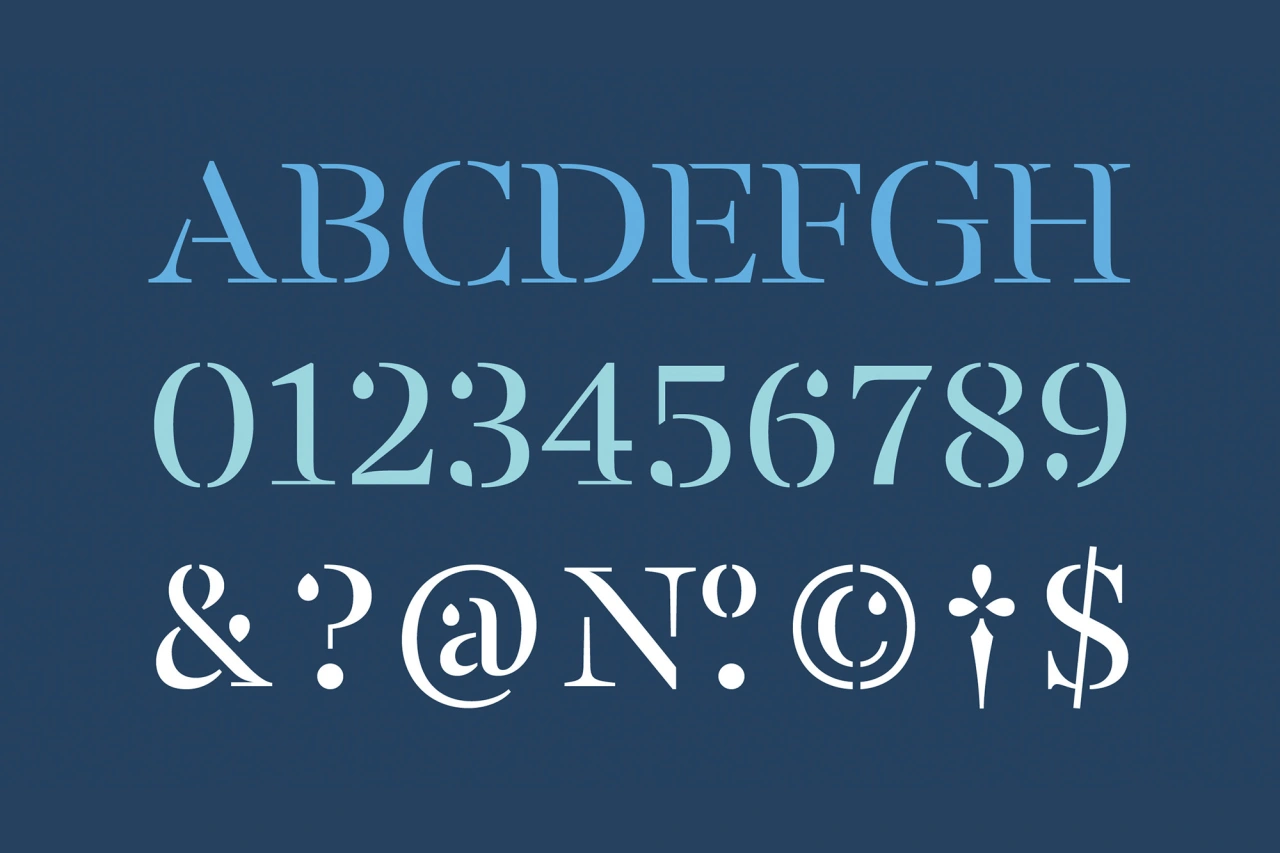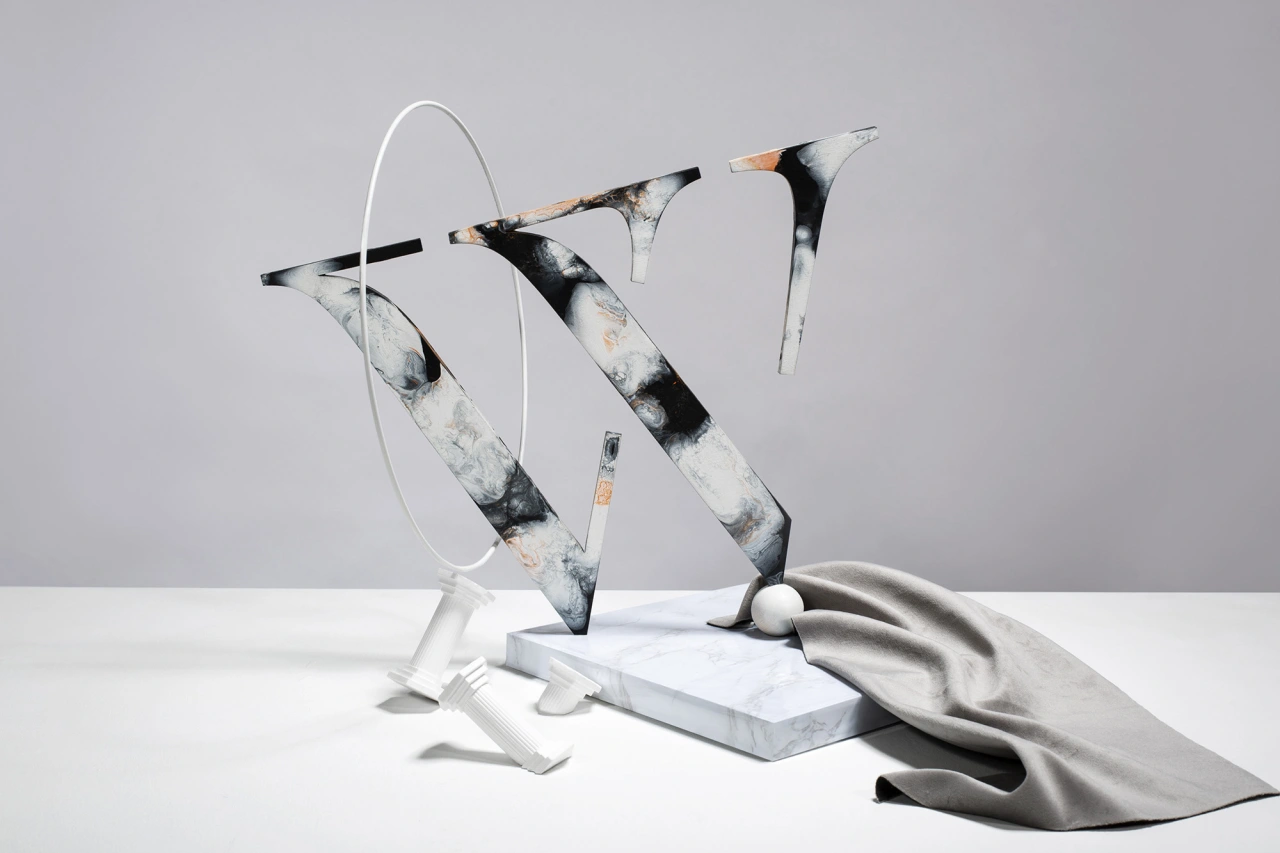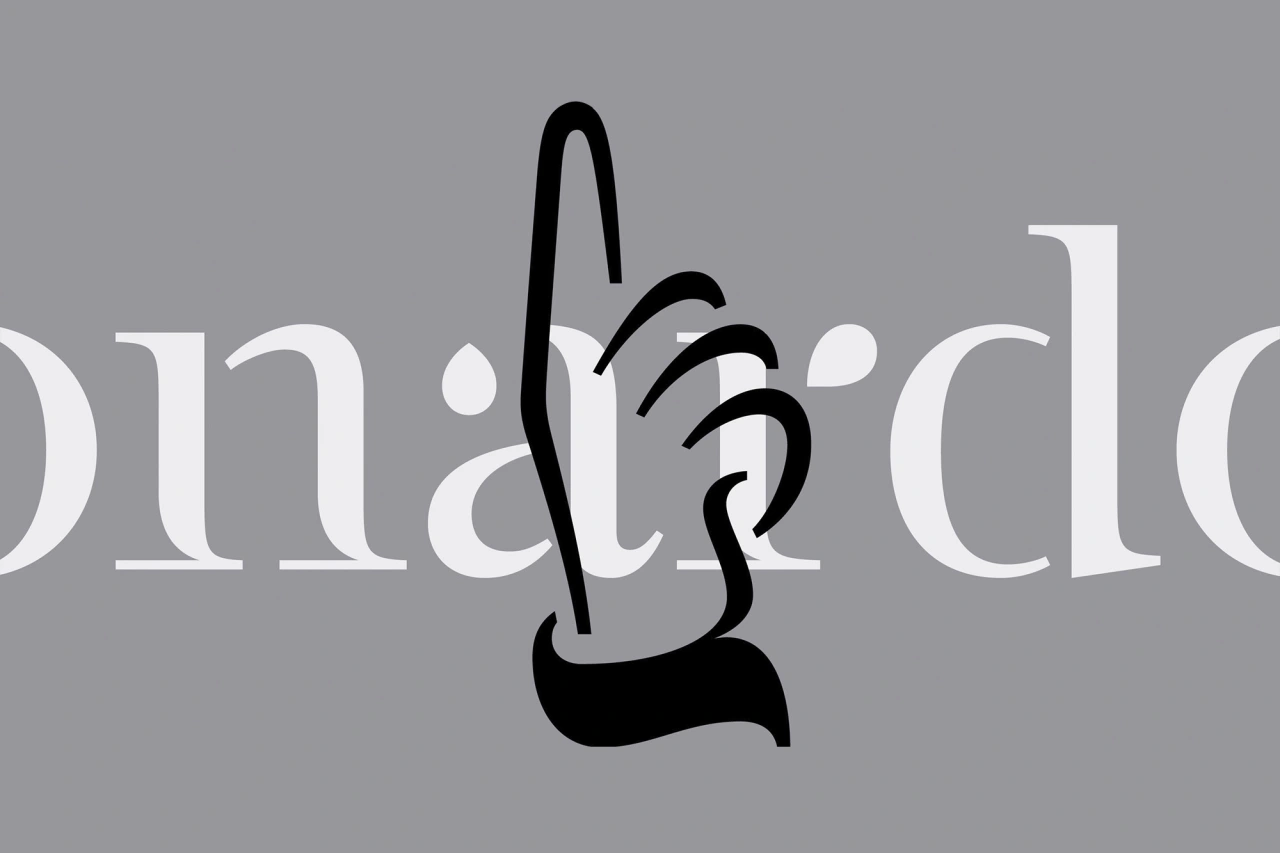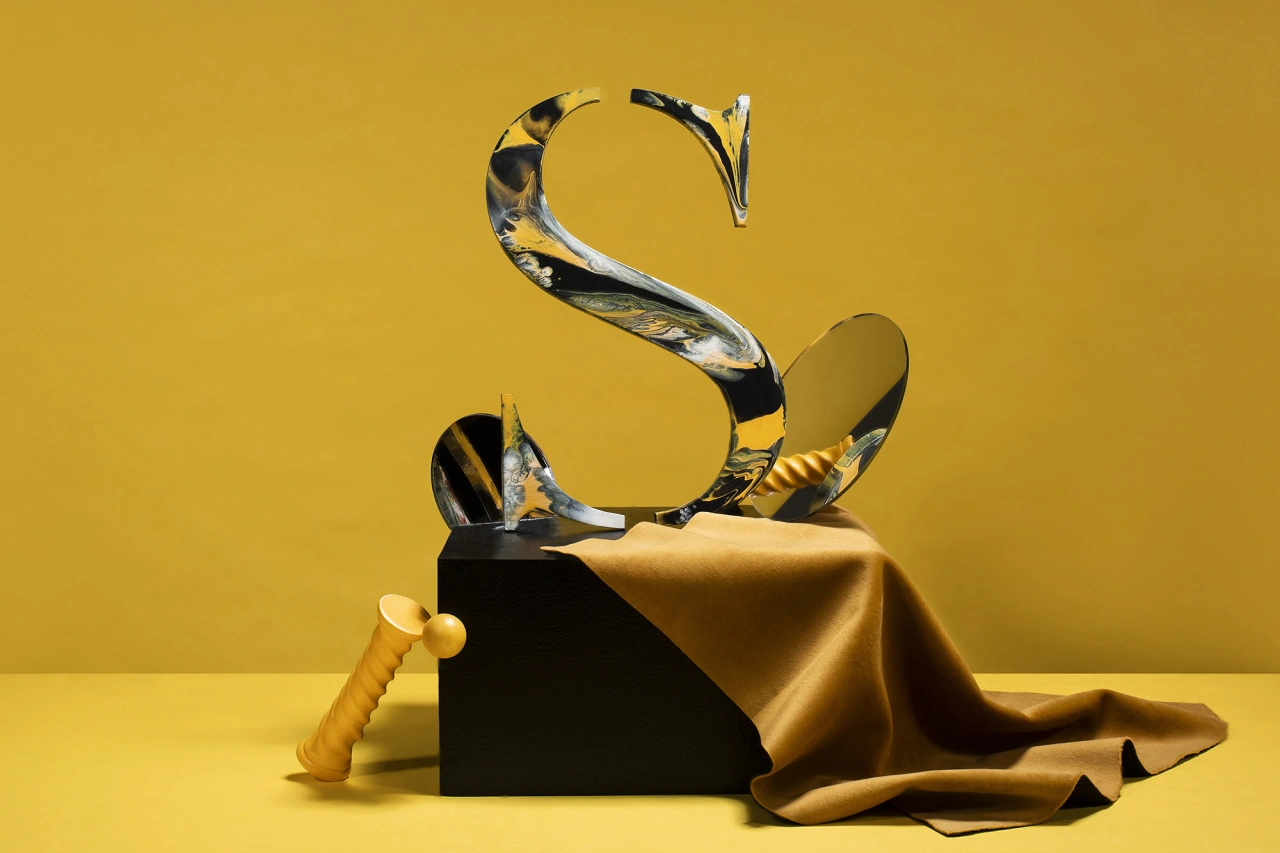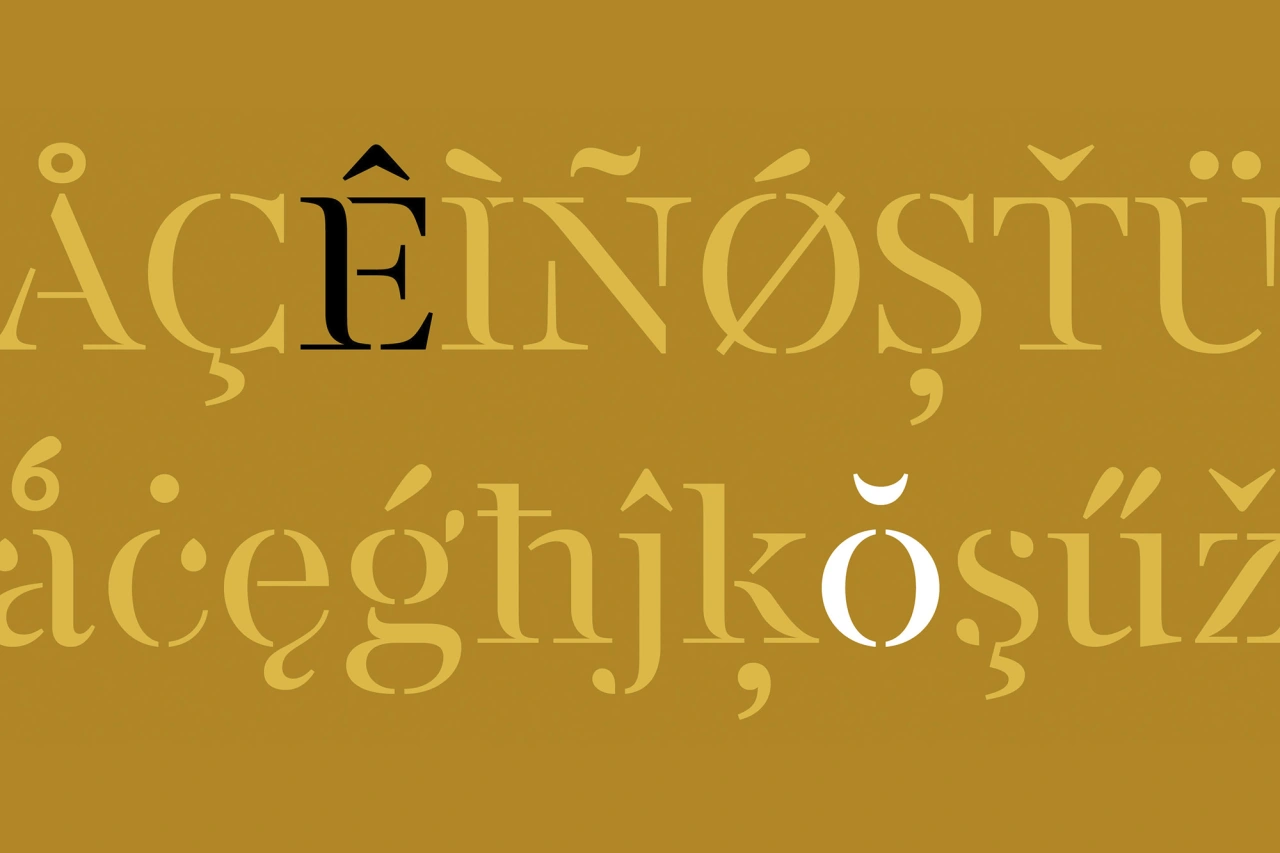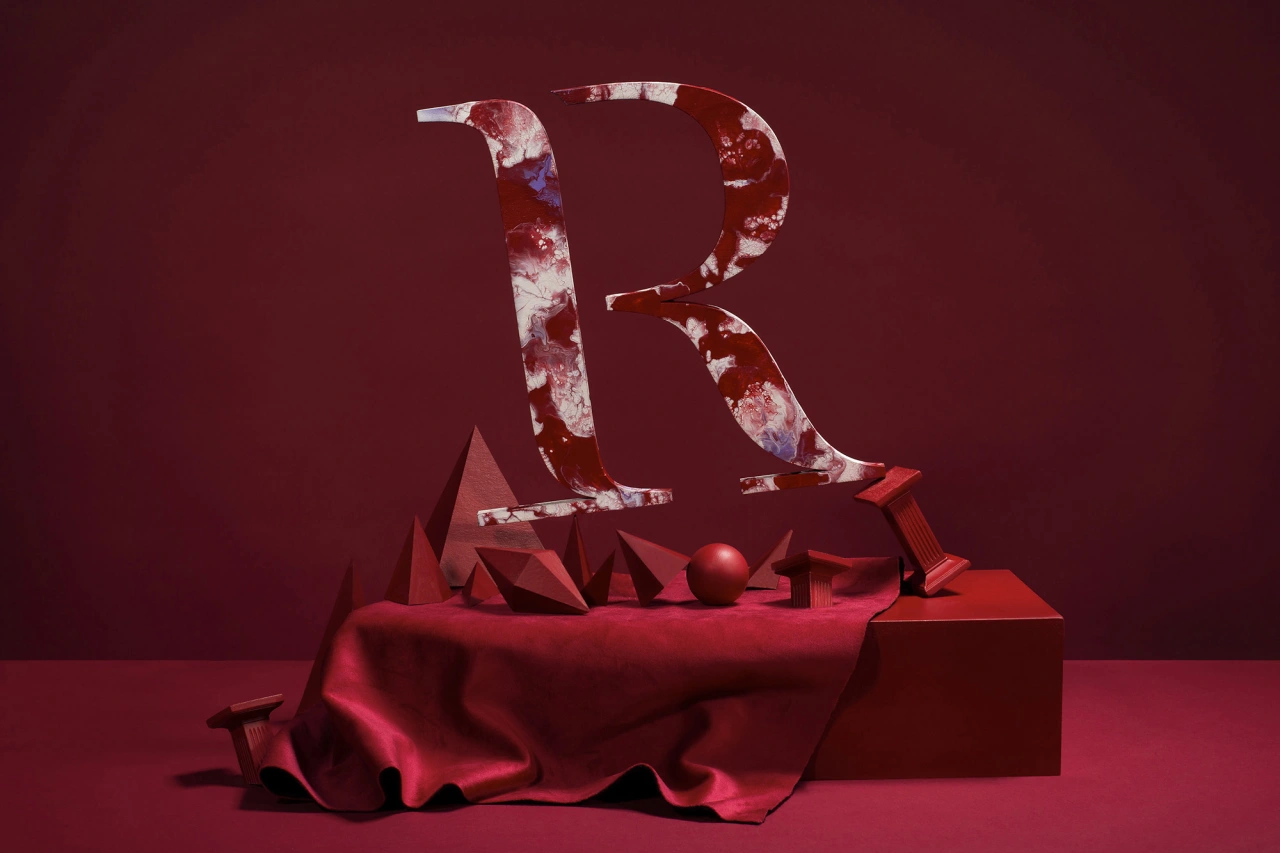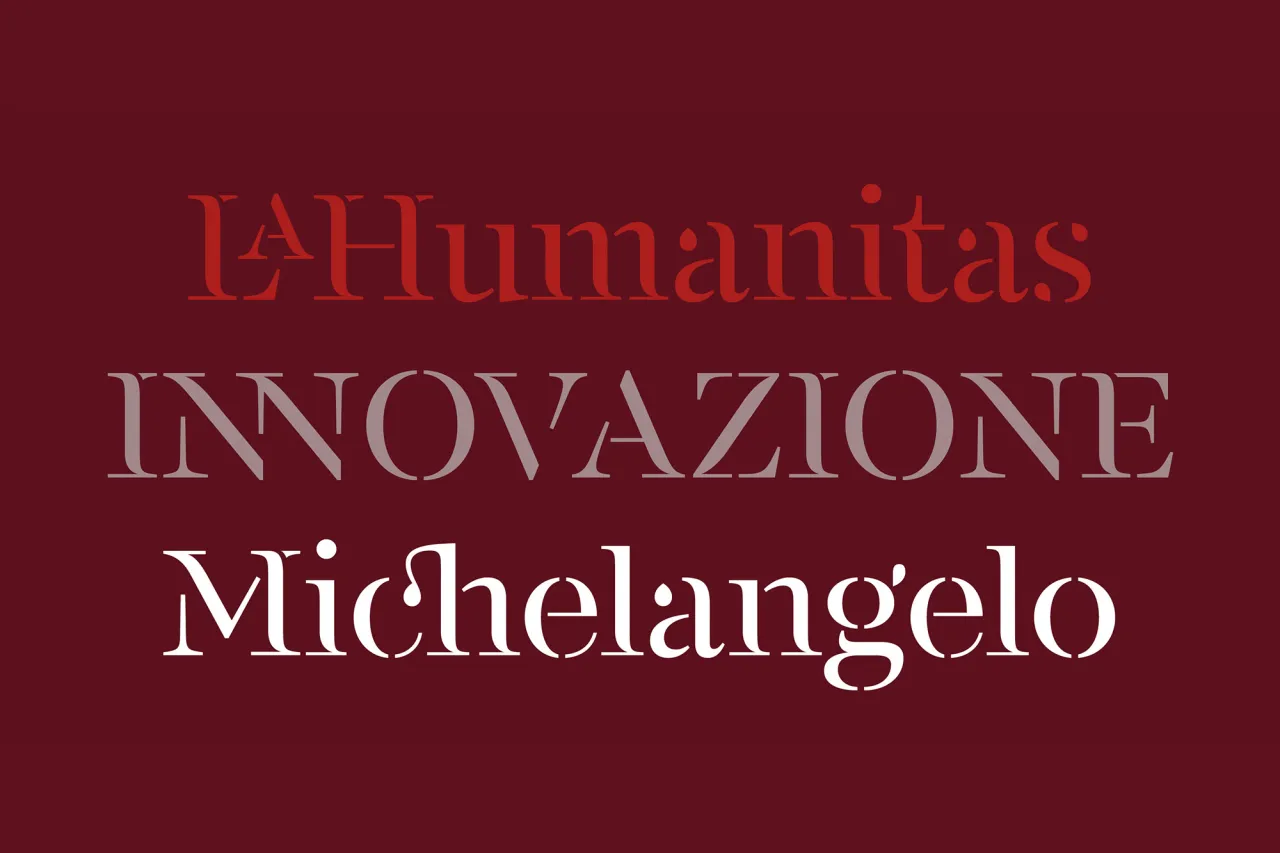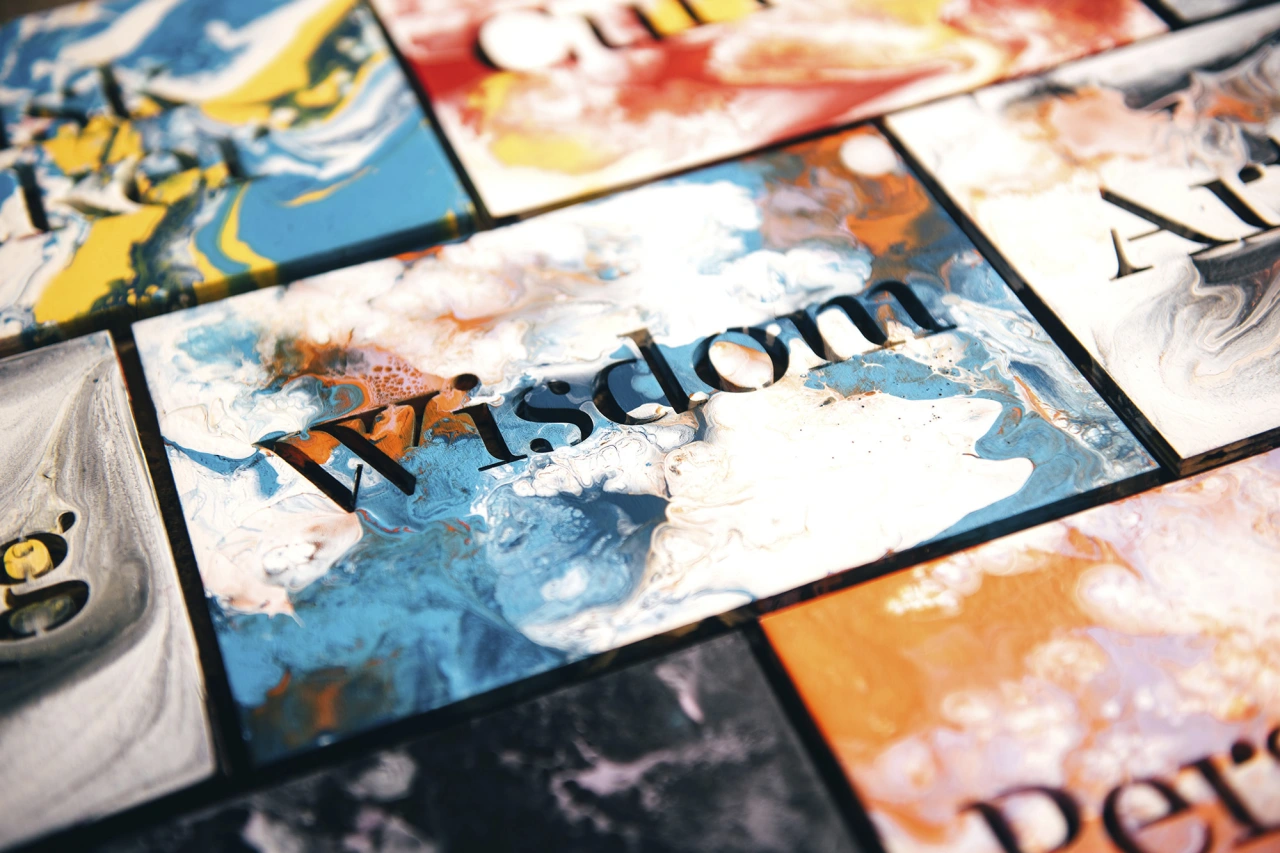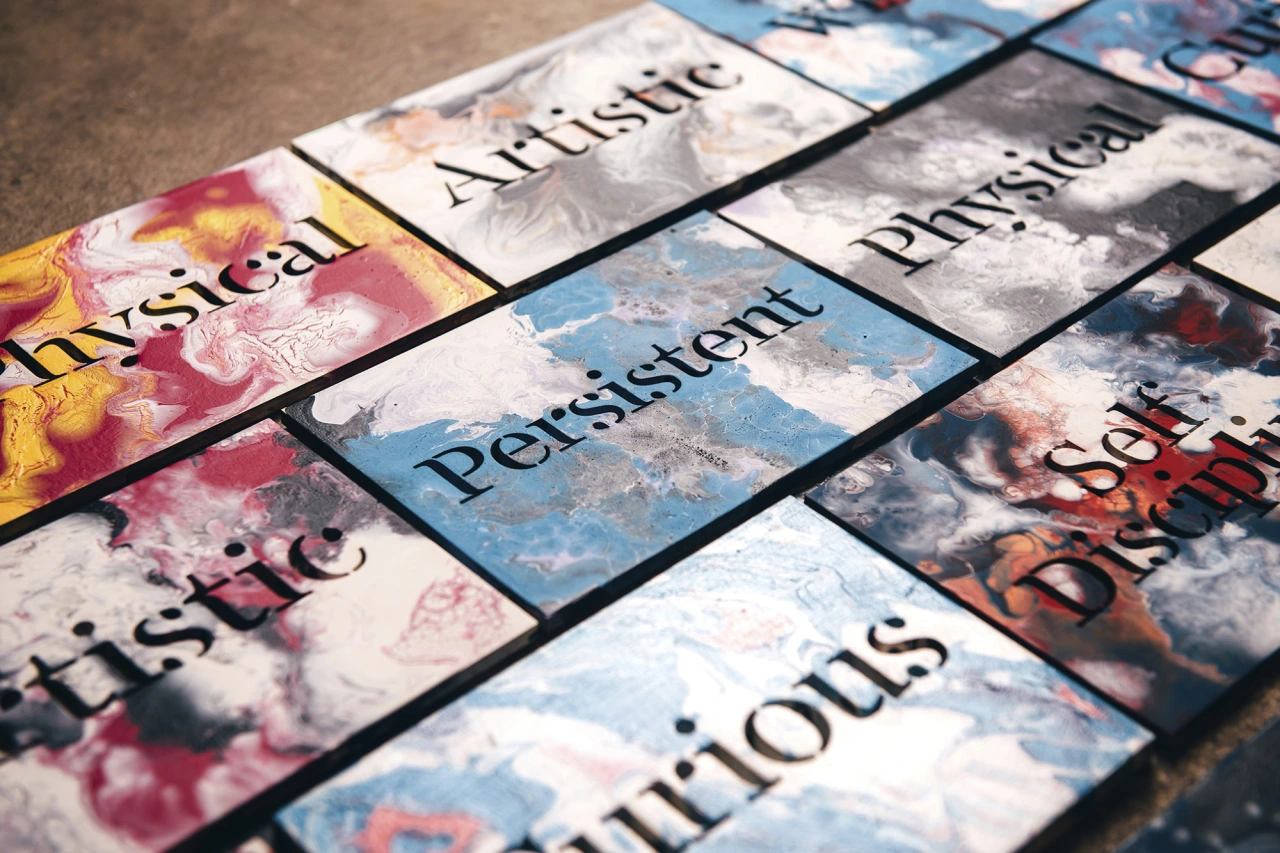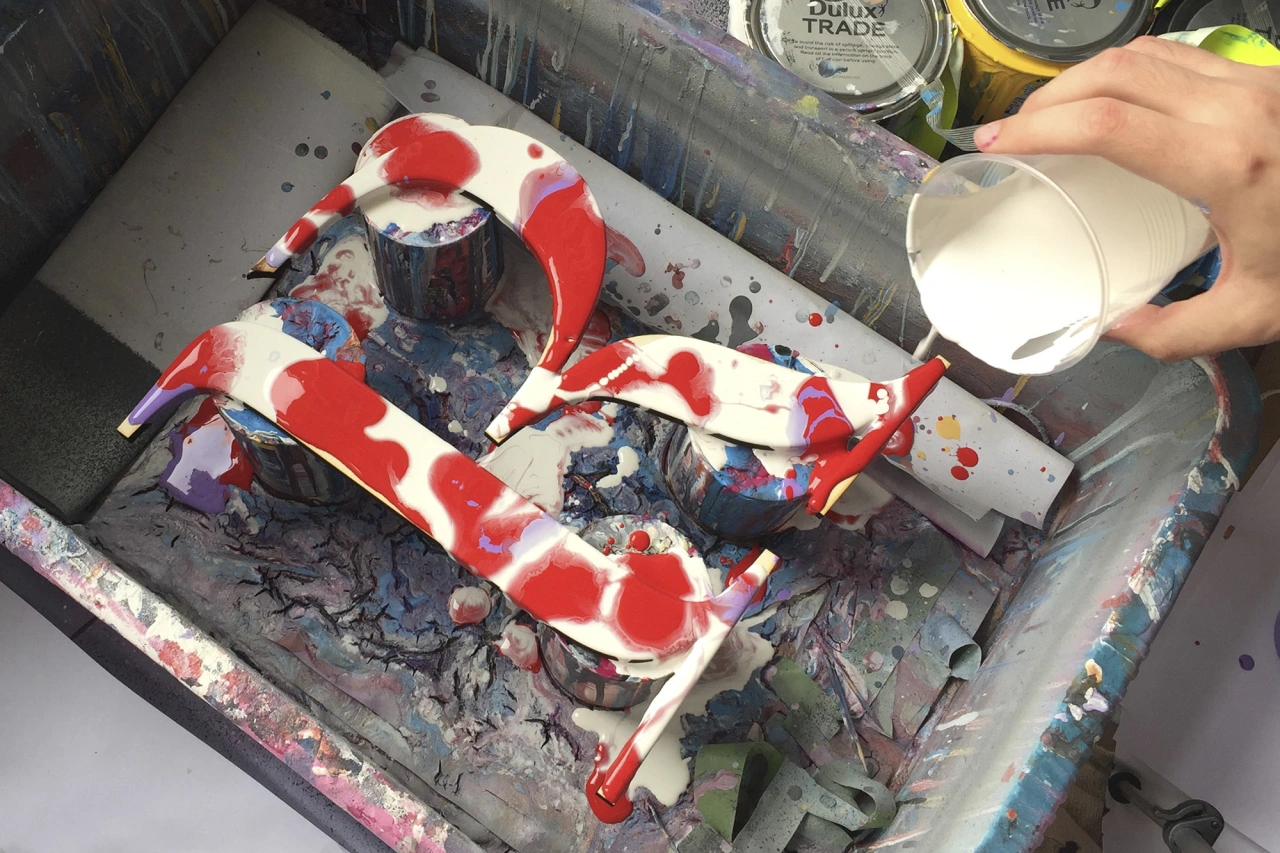
Pedro Arilla and Craig Black create a new display stencil typeface inspired by the Renaissance period
Monotype has just released FS Renaissance, a new display stencil typeface developed by creative type director Pedro Arilla, in collaboration with lettering artist and designer Craig Black.
A single style font, it explores "the intersection between art and design" with each letter crafted as a "standalone piece of art while working harmoniously together as a functioning typeface".
The initial idea for the project came from Craig who had been working on a typeface inspired by the Renaissance period symbolised by flourishing progress in the arts, sciences, learning, and philosophy. He was particularly interested in the so-called 'Renaissance Man/Woman', a term coined in reference to some of the most talented artists, inventors, scientists, and thinkers who were the drivers of the period: such as Leonardo Da Vinci, who was known as a painter but was also a scientist, engineer, and mathematician.
Craig approached Fontsmith (now part of the Monotype Studio) about a collaboration to take his idea to the next level and create a fully functioning typeface. "When I first saw Craig's design it was love at first sight," says Pedro. "I knew Craig's work pretty well and even though I was expecting to be surprised, I didn't see this coming.
"There is something magnificent about it, when I look at it I can see a real fluidity, the letters look like they are dancing with the light. FS Renaissance is a display typeface with elegant contours and an ageless demeanour. Paraphrasing Napoleon: from the heights of these letter-shapes, five typographic centuries look down on us."
FS Renaissance is not a traditional stencil design: the cuts are not rigid but interactions that are handcrafted between each element, emphasising the idea of a typeface as a piece of art or sculpture.
"Being a modern-day Renaissance man doesn't mean you have to be an accomplished poet or master sculptor,” adds Craig. "Rather, it means being as open to the world as possible and embracing all opportunities as they come your way. It means keeping your mind sharp and your body in good shape, for the mind needs a healthy body to achieve its full potential.
"It means learning as much as you possibly can. It means travelling and seeing the world, experiencing its people, and learning its language. It means not being afraid to be who you are and feel comfortable in your own skin. These characteristics influence my own nature and I wanted to represent this through a typeface, therefore, FS Renaissance was created."
To celebrate the launch of the new font, Craig has created a series of handmade typographic sculptures that were photographed by Susan Castillo. The images encapsulate the spirit of the project, showcasing the letterforms as pieces of physical art. Find out more: craigblackdesign.com.